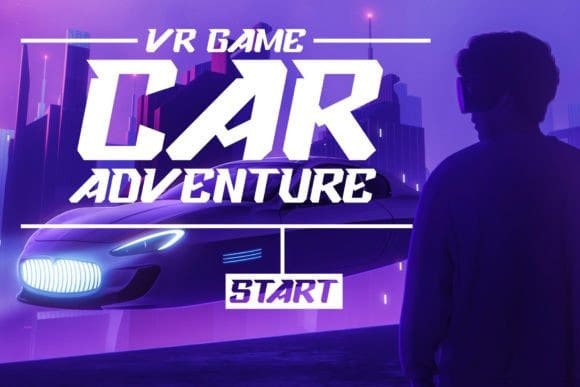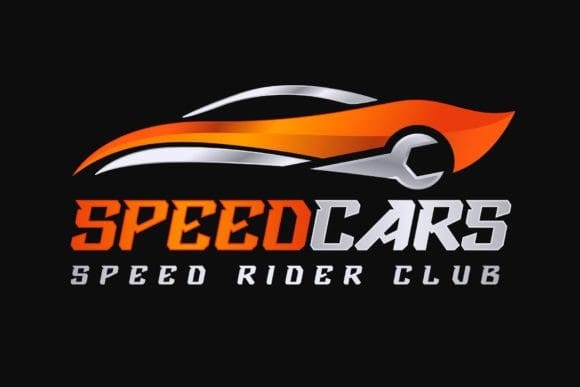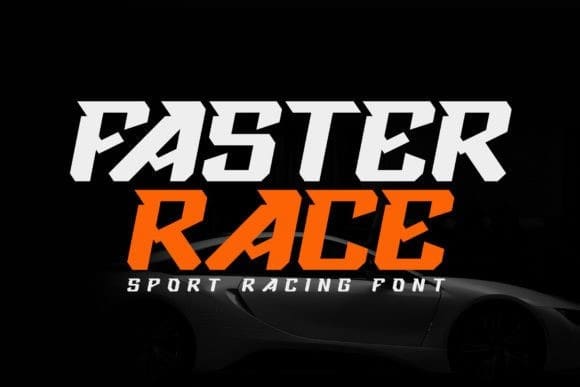
Faster Race Font
Faster Race Font – Sport Racing Font is a dynamic and energetic typeface designed for speed and excitement. Inspired by the world of motorsports, this font features sharp angles and sleek lines, giving it a modern and futuristic look. Its bold and uppercase letters exude power and confidence, making it perfect for conveying a sense of speed and action. Whether used for branding, posters, or sports-related designs, Faster Race Sport Racing Font is sure to make a strong visual impact.